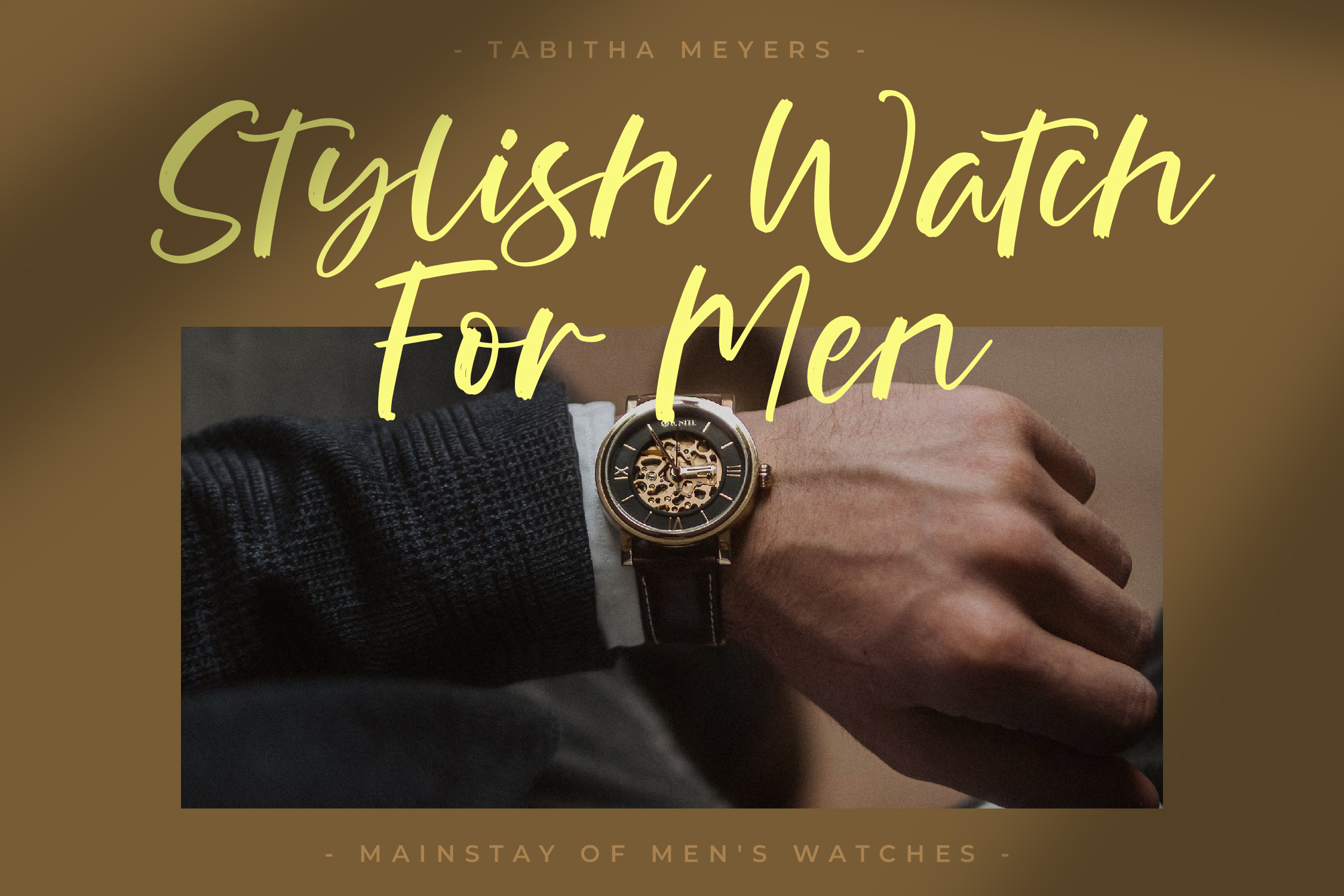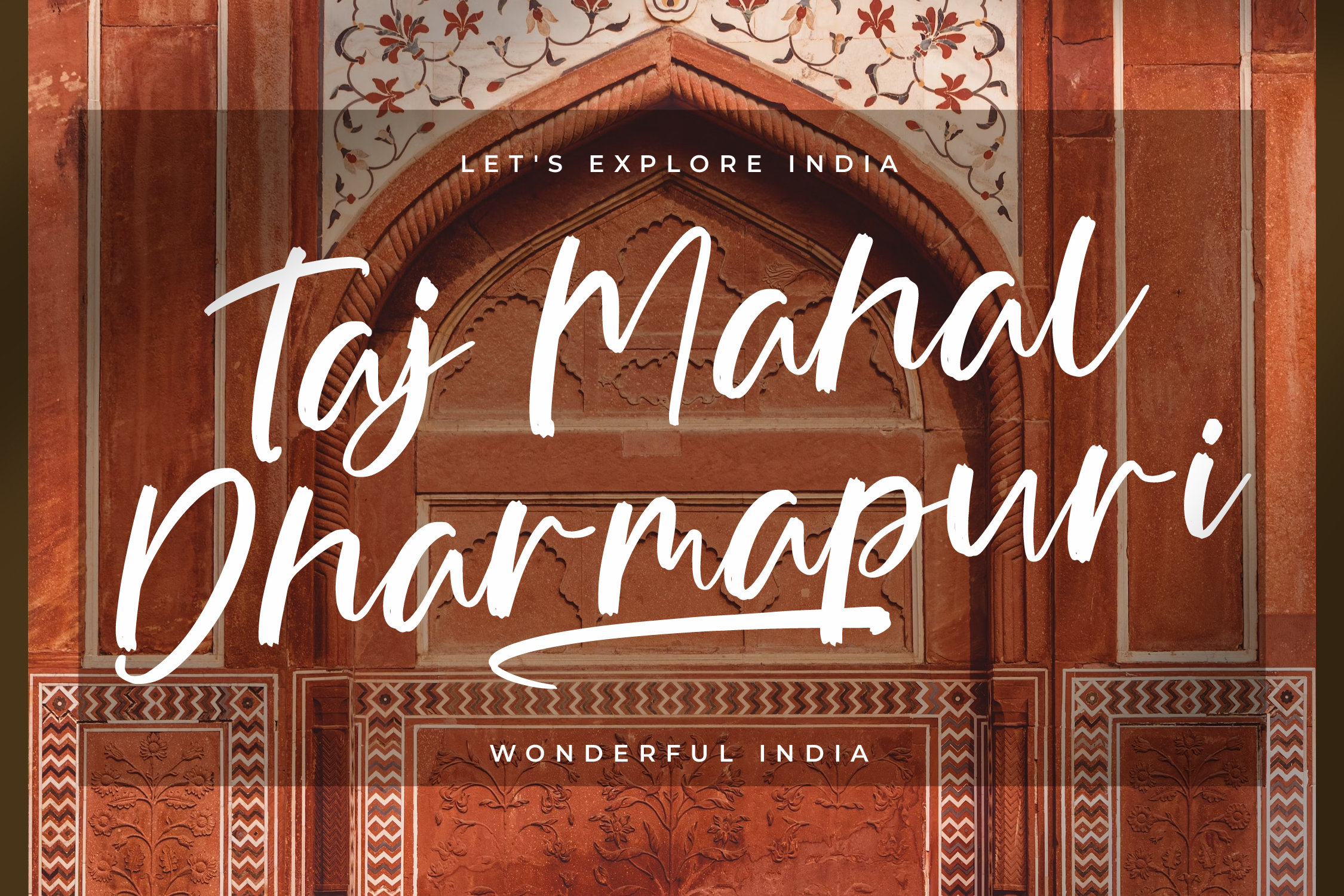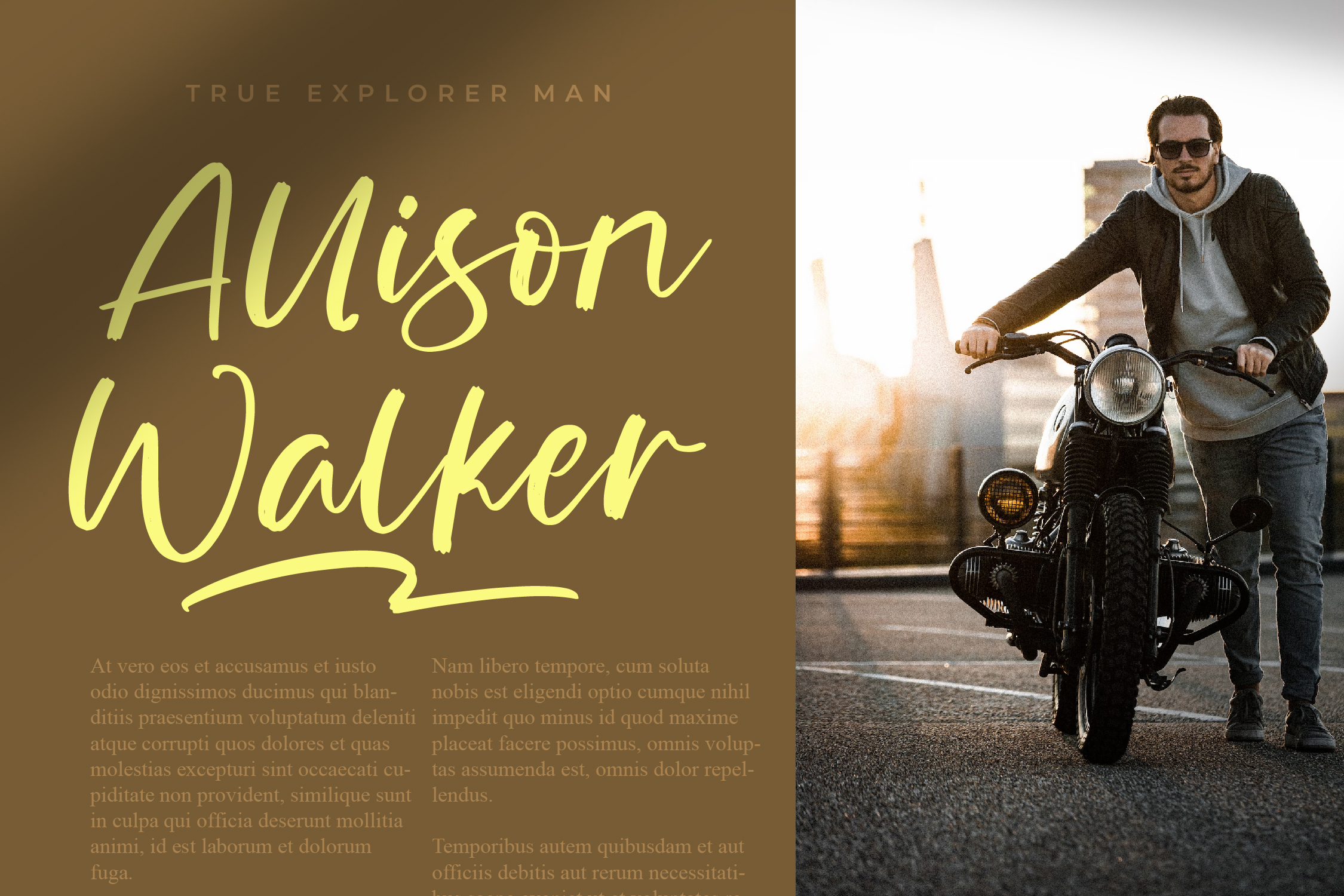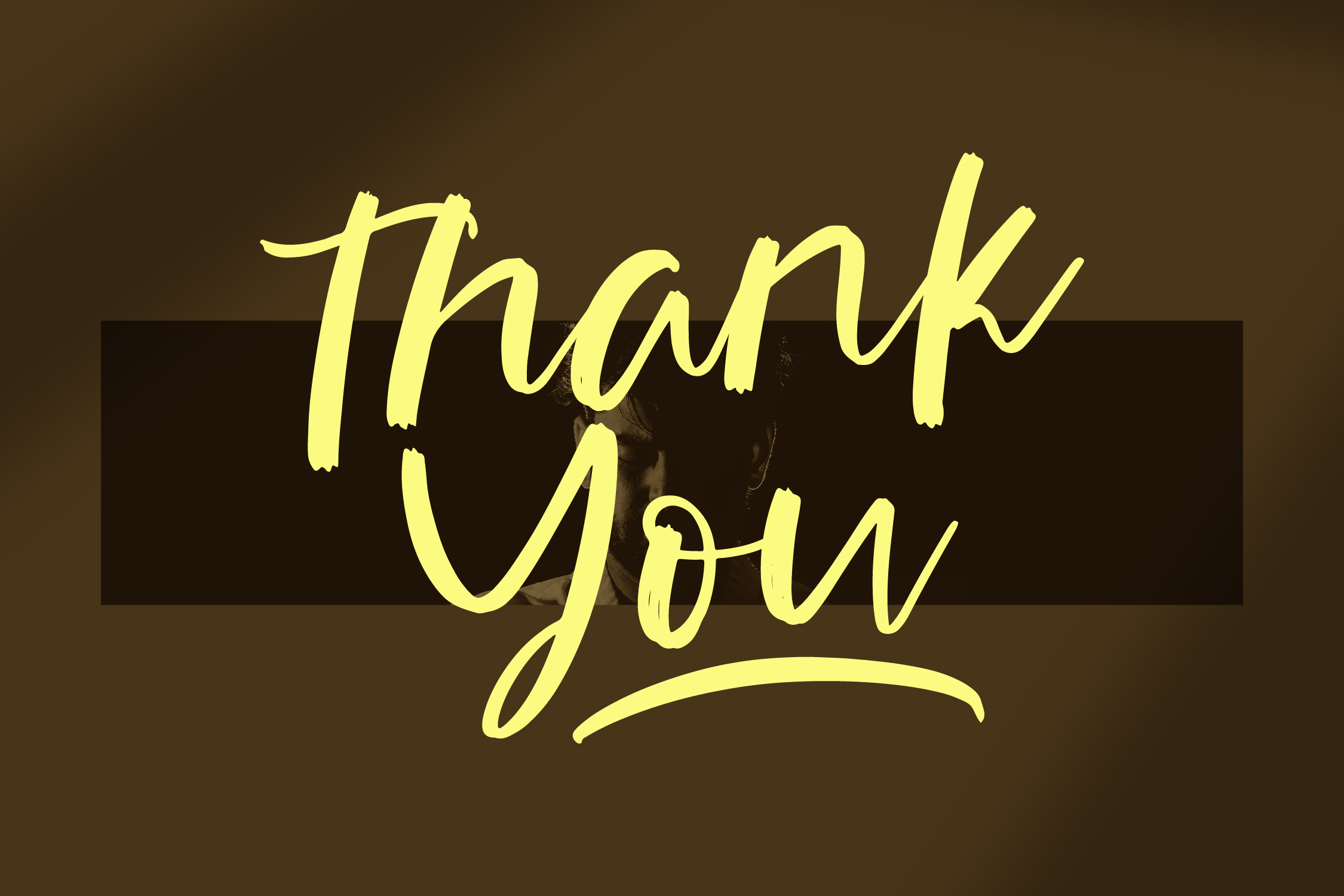
Romario Smithra Script Font is Modern Brush Signature Font, suitable for any projects such as: logos, branding projects, homeware designs, product packaging, mugs, quotes, posters, shopping bags, t-shirts, book covers, name card, invitation cards, greeting cards, label, photography, watermark, special events, and all your other lovely projects that need a beautiful script taste.